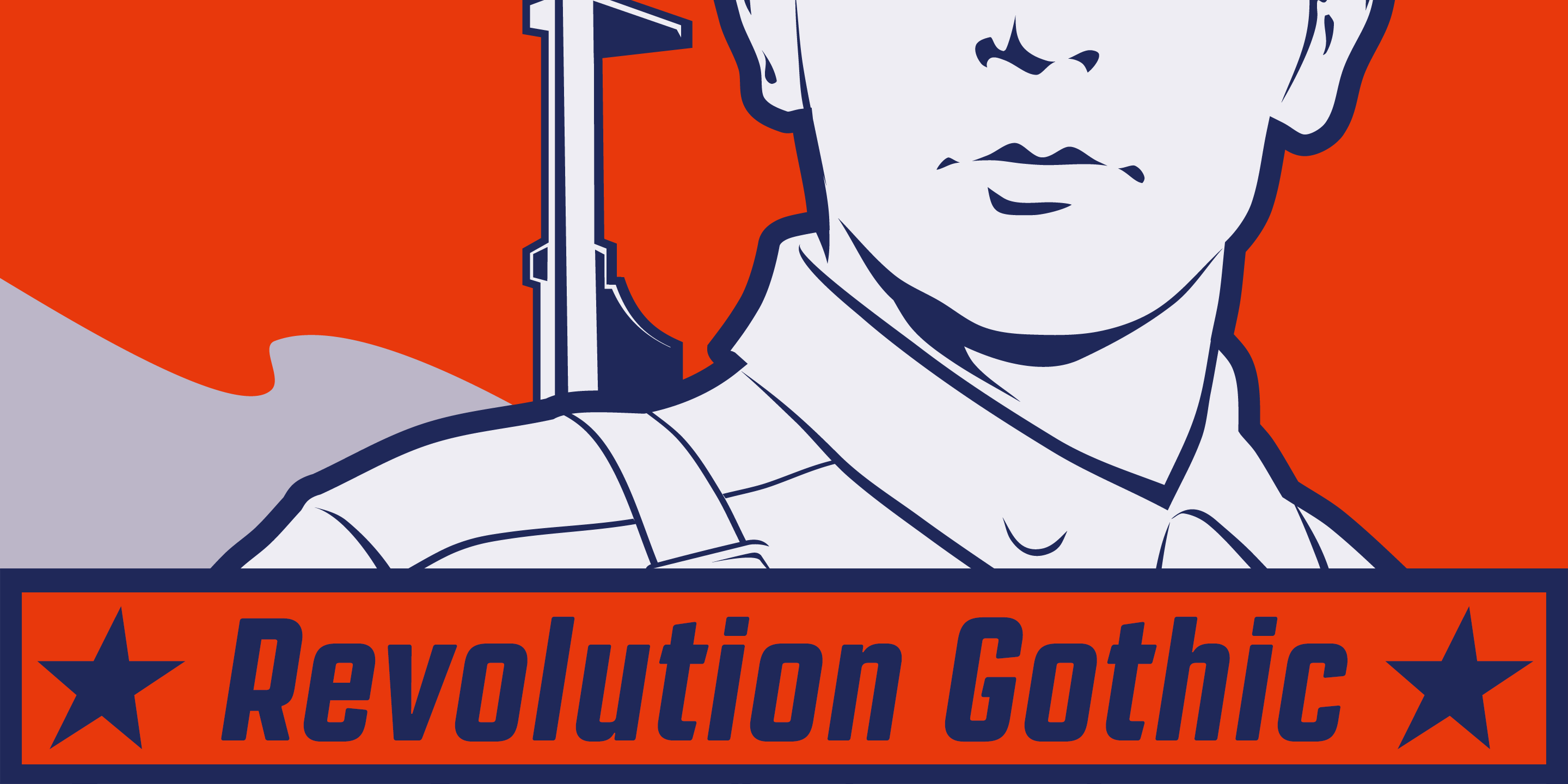
The Revolution Gothic Font is a powerful and impactful typeface, designed to convey a sense of strength, rebellion, and a bold, industrial aesthetic. Its often condensed forms, sharp angles, and robust character make it an excellent choice for heavy metal album art, action movie posters, gaming titles, urban streetwear branding, automotive advertising, and any design that demands a commanding presence. Whether you’re crafting an aggressive slogan or a brand identity that embodies raw power, this font will inject your project with an undeniable force and an edgy, modern sensibility.
What makes the Revolution Gothic Font so exciting is its ability to instantly grab attention and project an aura of unyielding determination. It's perfect for designers who want to evoke a sense of defiance, resilience, or a cutting-edge, dystopian aesthetic. This font stands out by offering a unique visual voice that is both intimidating and captivating, making any text it graces feel monumental and significant. Its strong, often unadorned structure ensures high legibility even at its extreme weights, guaranteeing that your message is delivered with maximum impact and clarity, perfect for making a bold statement.
The Revolution Gothic Font typically offers a focused set of features to support its distinctive style. While specific offerings may vary depending on the font package, you can generally expect to find a Regular weight, often accompanied by a Bold or Heavy version to amplify its inherent strength. Some versions of the Revolution Gothic Font Free Download might also include alternate characters or subtle textural variations to offer more design flexibility while maintaining its core rugged aesthetic. These features ensure that the Revolution Gothic Font can be adapted to almost any design requirement where a strong, industrial, or powerfully rebellious statement is desired, maintaining its consistent impactful charm throughout your project.